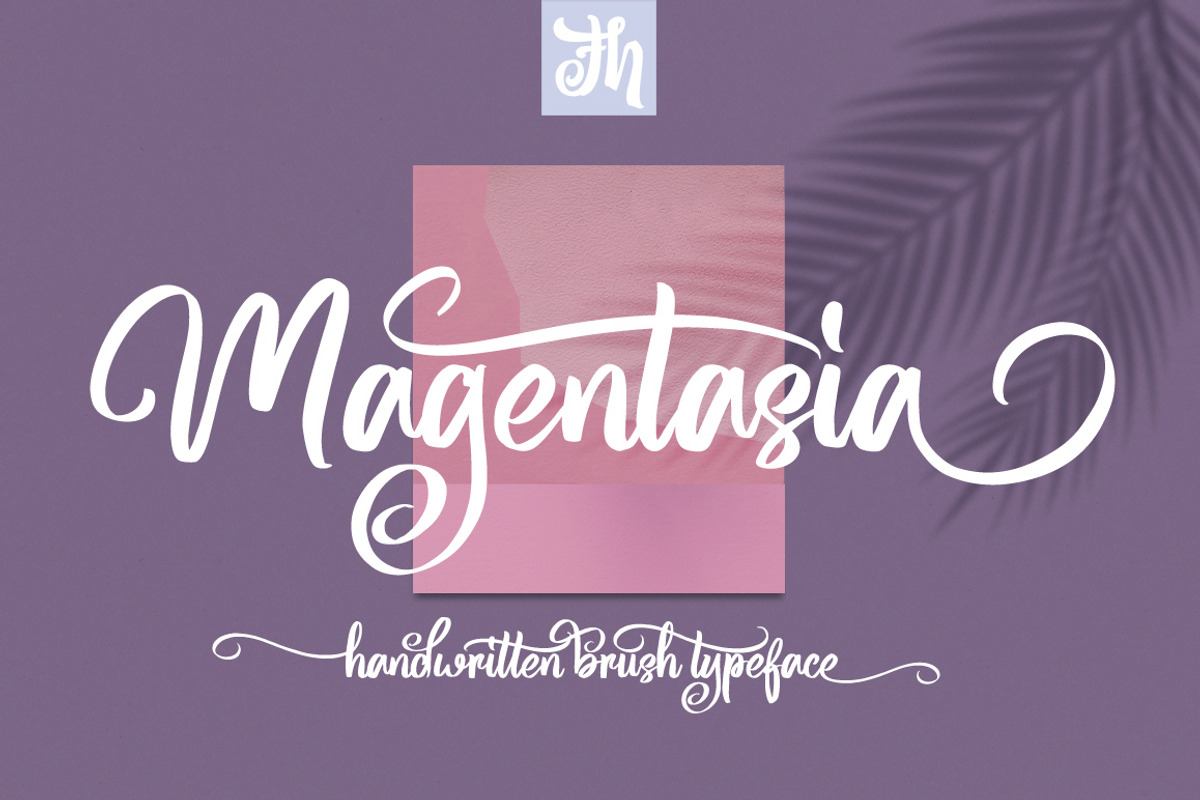
Add a touch of magic and personality to your designs with Magentasia Handwritten Font Free Download — a delicate and graceful script font that captures the charm of natural handwriting. With its whimsical curves and smooth strokes, Magentasia is ideal for wedding invitations, personal branding, journaling, packaging, and social media content that needs a heartfelt and creative touch.
Magentasia feels like it was written by hand with care and intention. It includes uppercase and lowercase letters, numbers, punctuation, and multilingual support — offering you the flexibility to create soft, expressive, and universally beautiful designs.